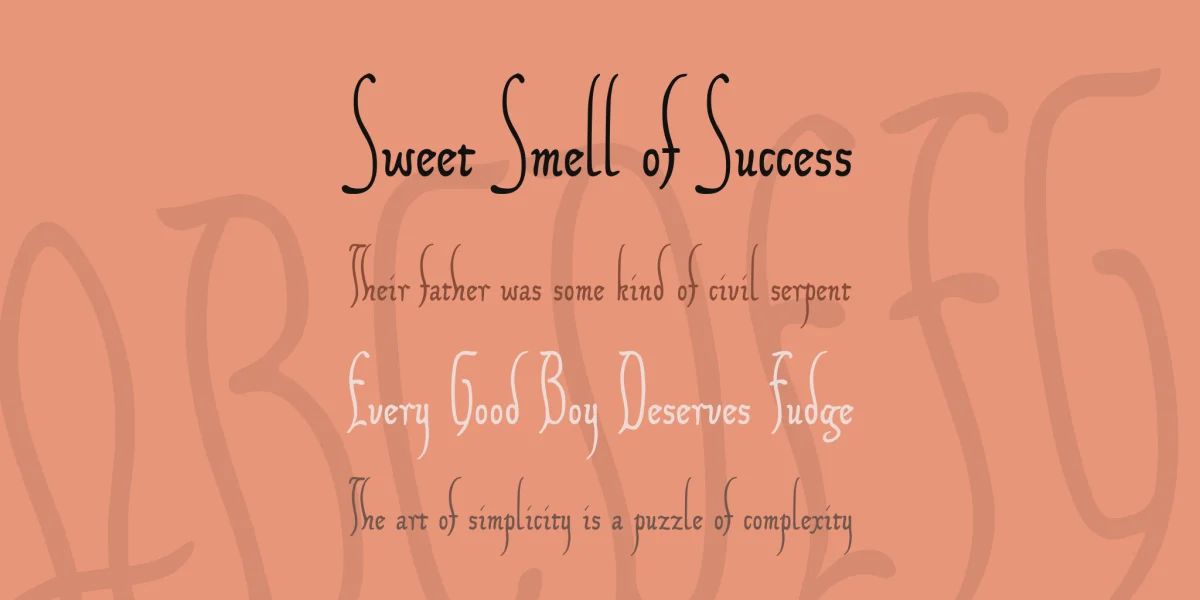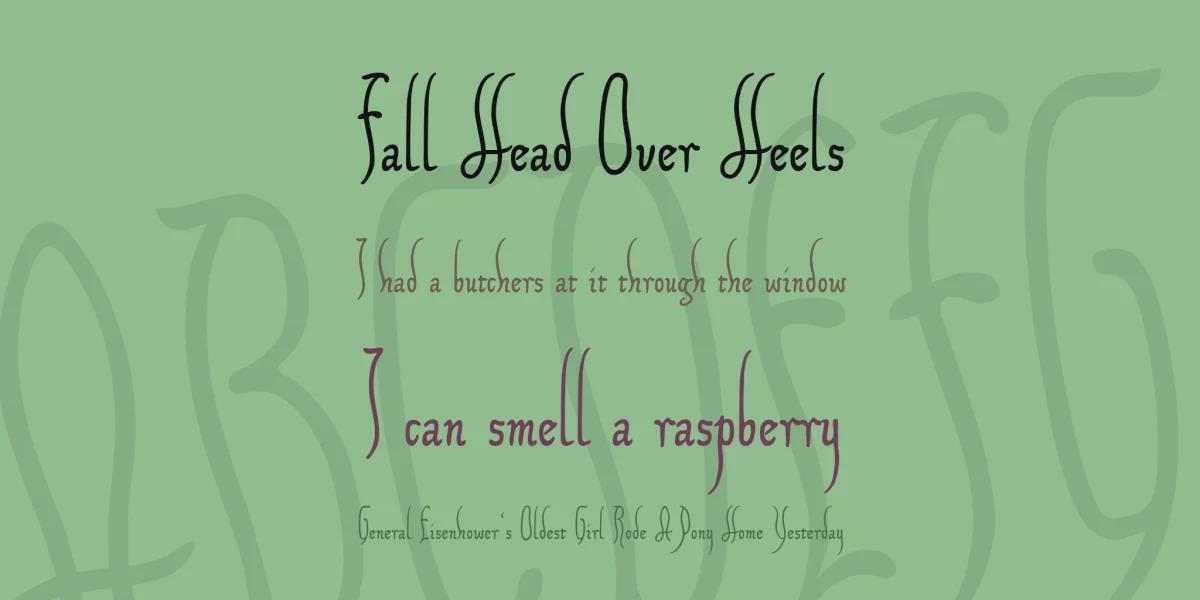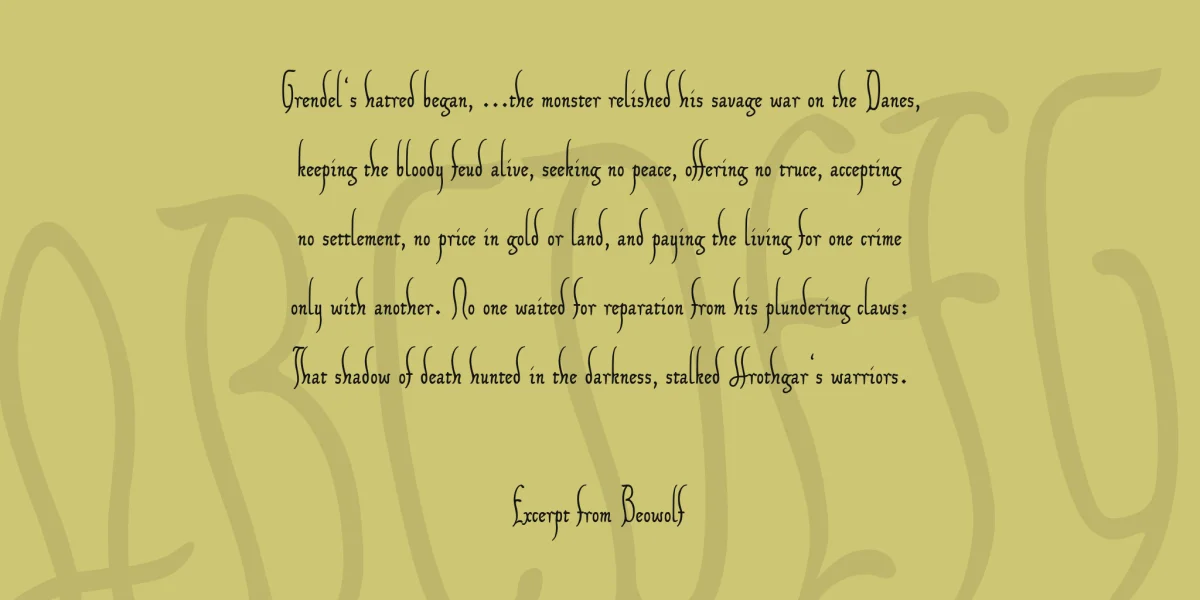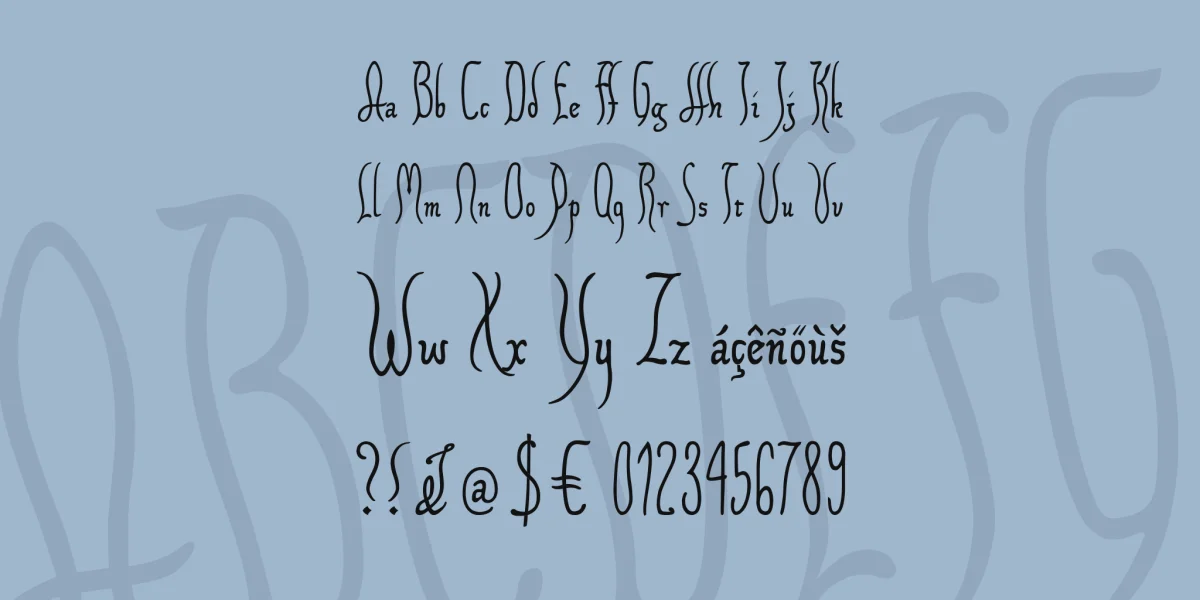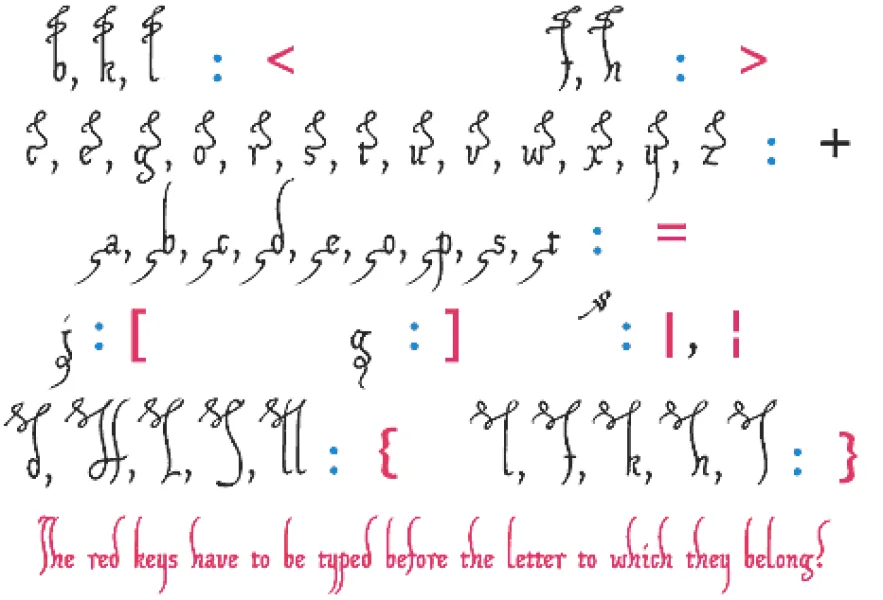
The XIPAROS font is sort of an extract of some German charters issued nine hundred years ago by one Henry, about whom I know nothing, apart from his being the last of the Salic kings, and his obstinate refusal to do an exact reckoning of his predecessors, calling himself the fourth of his name, while history -- supposedly for good reasons -- has settled him down as the fifth (is there anyone out there who can solve this riddle?). Trying to explain what such charters are like would be easier if my relations with palæography weren't but superficial and mostly long forgotten ones; but as it is, I must ask you to put up with a bit of guesswork.
Such charters, then, were written in Latin, and in a cursive hand that, to judge by its bewildering beginnings in the Carolingian age, seems to have developed out of the Roman cursive -- which was about the highest pitch of illegibility Western writing has ever reached. By the year 1000, however, its lower case letters have become quite recognizable. What remains to make them tough reading, is the clerks' frenzy to abridge each and every word, and a sheer endless variety of abbreviation signs, most of which, at least to me, seem rather short-lived in use as well as meaning.
In structure, those charters appear pretty constant over the centuries. They begin and end with a formula displayed in what I shall now tentatively call a fence -- i.e. a line of incredibly high, incredibly narrow shaped, and incredibly closely crammed letters --; and their most common feature is to keep the lines apart. For while the middle zone looks rather compressed, the occasional upper or lower zone sallies of ds, fs, ps, rs, etc., are towering so high or digging down so deep as to require a blank between the lines of at least five times the middle zone height. Change will set in, replacing the fence with Lombardic capitals, reducing it by degrees to a mere initial, and eventually confining those gigantic upper zone extensions to a document's first line, shortly after the unaccountable Henry has left the scene. Yet in his charters, the conventional form still looks unchallenged, and its absurdity is in full bloom.
For all of those documents seem to have been penned in two minds. On the one hand, the clerks are wasting space by opening gap after gap between the lines, on the other they are determined to economize, by abriging all and sundry. And while they are producing blank after blank on the page, they seem obsessed with incurable horror vacui, struggling forever to fill those blanks by every means in their power. This is where the abbreviation signs come in handy. By 1100, their decorative value has outdone their purpose of conveying information. They are blossoming all over the page, reinforcing the impression of playfulness created by countless loops or zigzag lines meandering down the stems of ds, hs, etc., and sometimes even up the stems of ps and rs. I'd bet those loops and zigzag lines, when first surfacing, were abbreviation signs, too; but in Henry's time they merely disclose that the letter stems they adorn were felt to be too little space-taking.
For sure, a few of those decorations have been included in the XIPAROS font. However, they aren't attached to the glyphs. With one exception, they have to be typed like accents before the glyphs to which they belong, and you'll have to go for them on the following keys:
* On the less sign, you'll find the zigzag line that works with b, k, and l.
* On the greater sign, you'll find the zigzag line that works with f
and h.
* The + sign contains a little end swash that will look well after c, e, g, o, r, s, t, v, w, x, y, and z. It's an abbreviation sign that, originally, may have replaced an ending -s; but I've seen it at the end of expressions like moderno tempore, where it could mean nothing but decoration. This is the one and only of the font's decorations to be typed after the letter to which it belongs.
* On the = sign, there is a little swash that will look well before words beginning with a, b, c, d, e, d, o, p, s, and t. Its original use was that of an abbreviation sign, applied before the p, and meaning the syllable pro; but I've seen it before other letters as well, even in the middle of a word, and don't have the least idea as to its meaning in those contexts.
* On the left bracket, you'll find a hook that will add a loop to the letter j.
* On the right bracket, you'll find a hook that will add a loop to the letter g.
The bar and broken bar sign contain an abbreviation sign of absolutely indefinite meaning, which will look well above every lower case letter except the i and j.
* On the left curly bracket, you'll find a double loop to be combined with d, H, S, and ll.
* On the right curly bracket, you'll find the double loop that should work well with f, h, l, k, and the long s ...
... which, of course, is occupying its usual place, on the number sign.
The lower case letters of the XIPAROS font are rather genuine, if perhaps a bit more regular, and less edgy than the originals. However, I reduced the disproportions between upper and middle zone, and shortened the r to sit on the line. In Henry's charters, it's still reaching below, sometimes as far as the p; and I deemed this an horror-vacui-dictated anachronism not worth preserving.
As for the upper case characters, I made them up myself out of the long s. The charters are indeed no great help there. Even the letters forming the fence aren't always clearly to be defined as capitals, and those few upper case characters contained in the texts are rather mixed: sometimes borrowed from contemporary book hands, sometimes resembling Roman capitals, sometimes Lombardic ones, and sometimes as steep and narrow and distorted as to match the fence's writing. I've gone along with the latter, though there weren't enough of them to form an alphabet. Of course, I can't swear to all of my upper case creations, but some of them come pretty close to what I've seen in the texts.